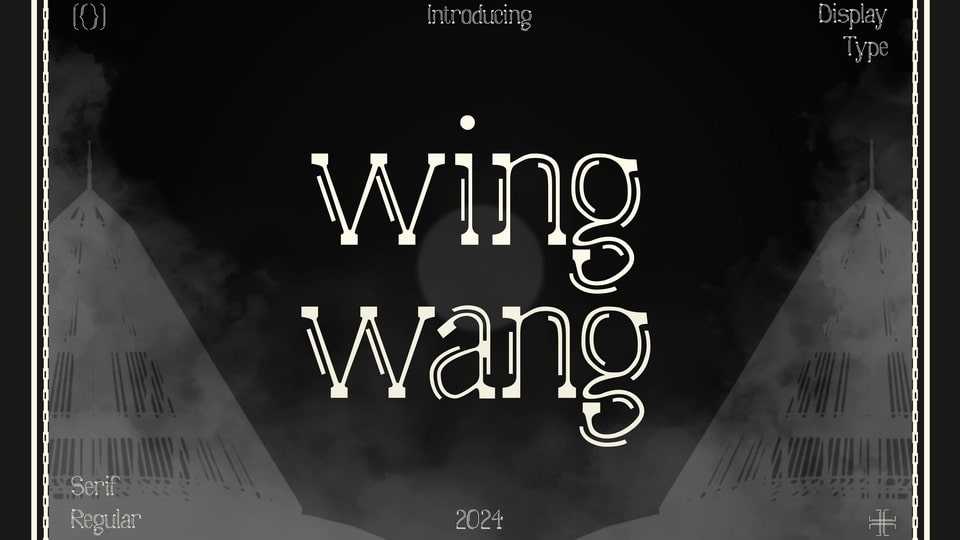
Download Wing Wang font, a serif regular typeface that serves as a display type. Inspired by the architecture design of the mbaru niang traditional house, it serves as a way to remember and preserve the Culture of Indonesia.
Designer: Kevin Gunawan